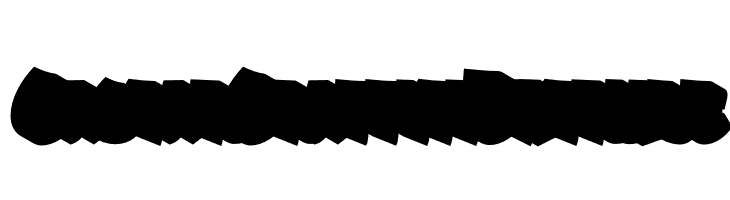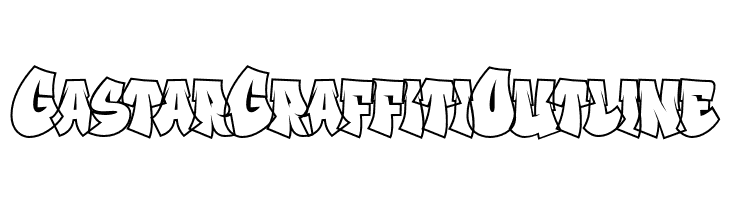
A bold, graffiti-inspired font with a 3D extruded effect, ideal for urban-themed designs.
A bold, graffiti-style font with dynamic, angular letterforms and thick outlines.
A bold, graffiti-inspired font with sharp, angular letterforms.